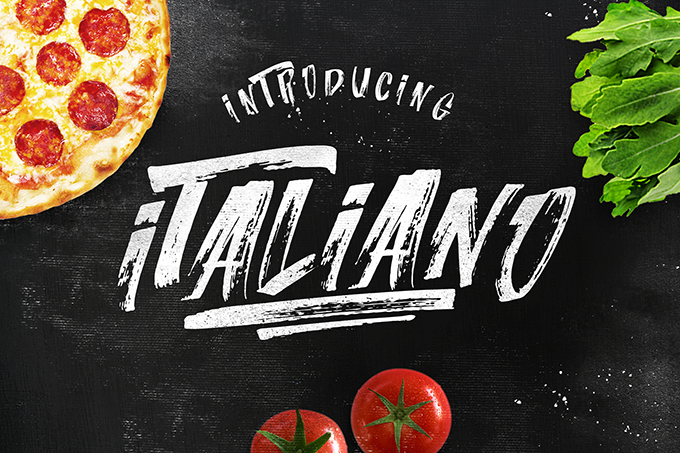
Italiano is brush font including all Central European glyphs and it comes in regular and slant version. Font bursting with energy, quick strokes and sharp edges. Ideal for loud messages. Very interesting to use for logos, name tags, handwritten quotes, product packaging, merchandise, social media & greeting cards .Also, ideal to make t-shirts design and other clothing products. If you want to use it in commercial purpose please buy licence here : http://www.leosupply.co Please report if you find any bugs or have some problems with this font. This font is only for PERSONAL use |